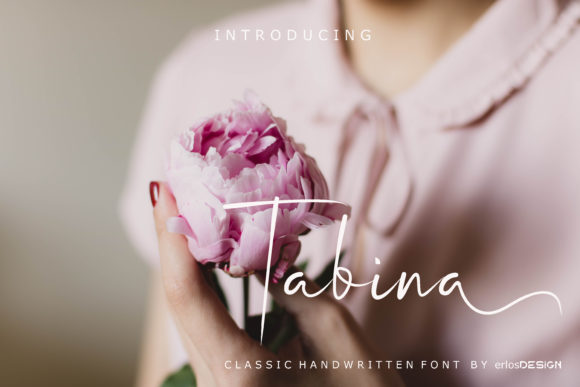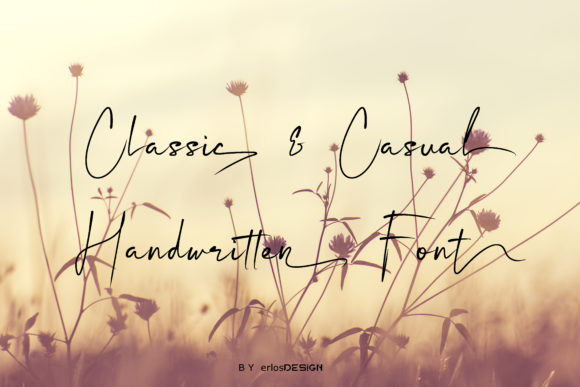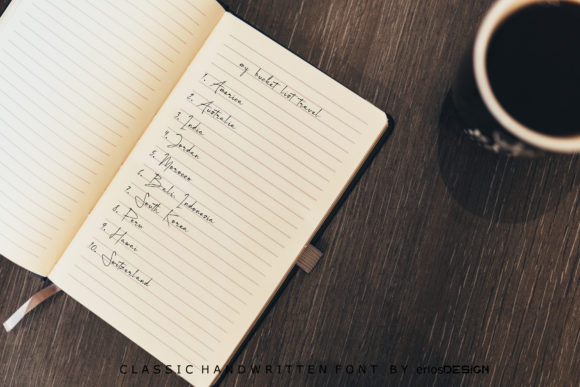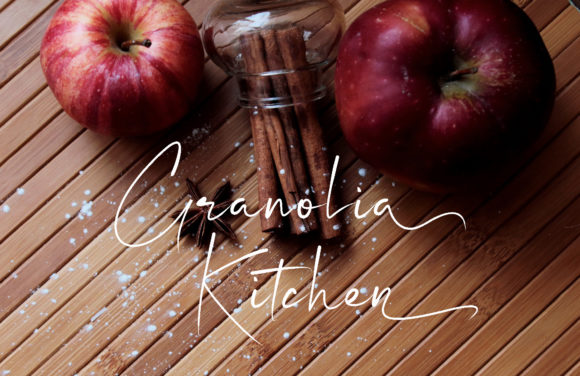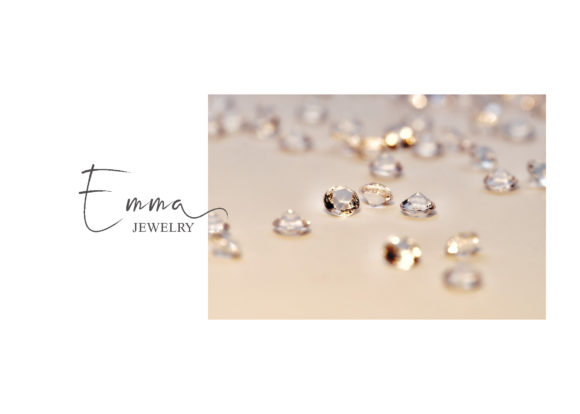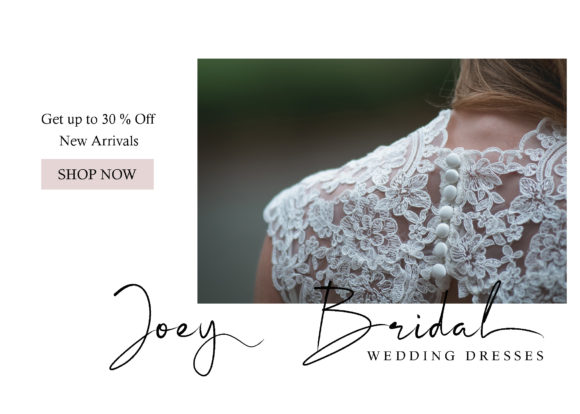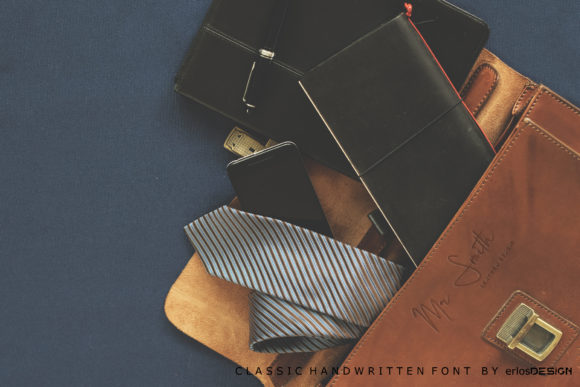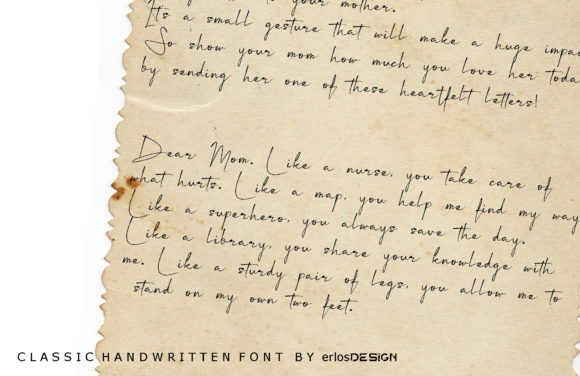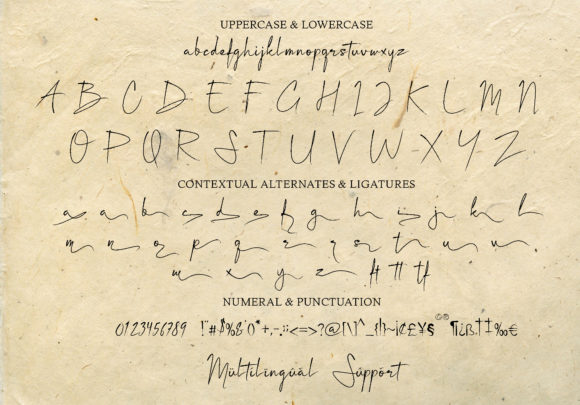
Tabina Font
Tabina is a sweet, romantic and timeless handwritten font. It looks stunning on wedding invitations, thank you cards, quotes, greeting cards, logos, business cards and every other design which needs a handwritten touch. This font is PUA encoded which means you can access all of the glyphs and swashes with ease! It features a varying baseline, smooth lines, gorgeous glyphs and stunning alternates.